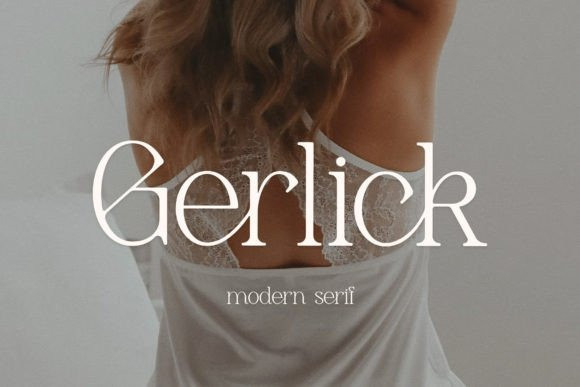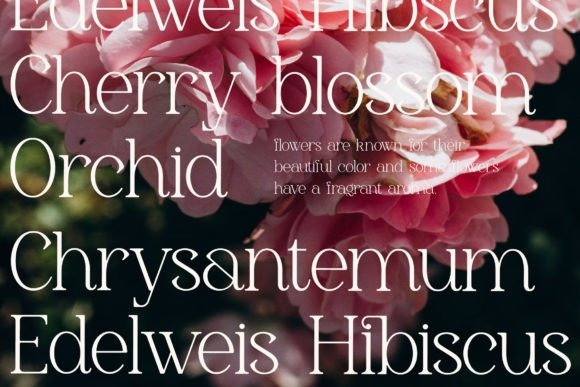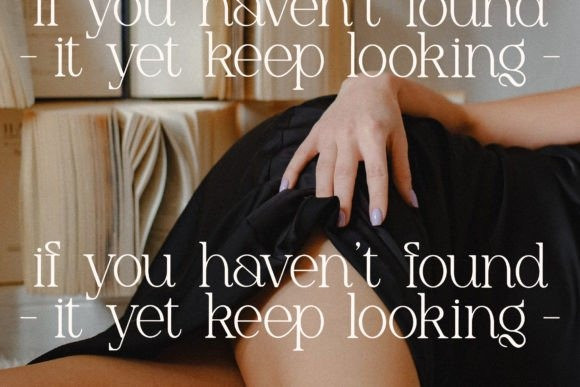
Gerlick Font
Proudly present Gerlick Typeface , created by Storytype,
A serif modern and classic typeface that has own unique style & modern look.
This typeface is perfect for an elegant & luxury logo, book or movie title design, fashion brand, magazine, clothes, lettering, quotes, and so much more.